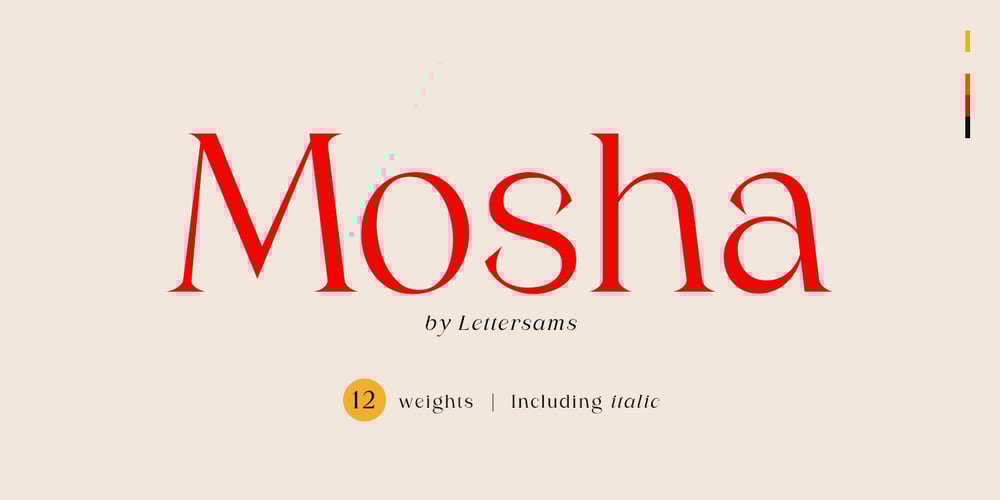
Mosha Variable Font Family was designed by Samsul Kamal and published by Lettersams. Mosha Variable contains 14 styles and family package options. Mosha is a transitional serif with high contrast that displays the latest and greatest styles, designed with a character that not many other fonts have so it looks very elegant and sweet, offers different styles and weights so it is suitable for a variety of design purposes, from invitations and branding to headlines and creative projects.Mosha comes in 12 different weights:Light RegularMedium Semi BoldBoldExtra BoldLight ItalicRegular ItalicMedium ItalicSemi Bold ItalicExtra Bold Italic